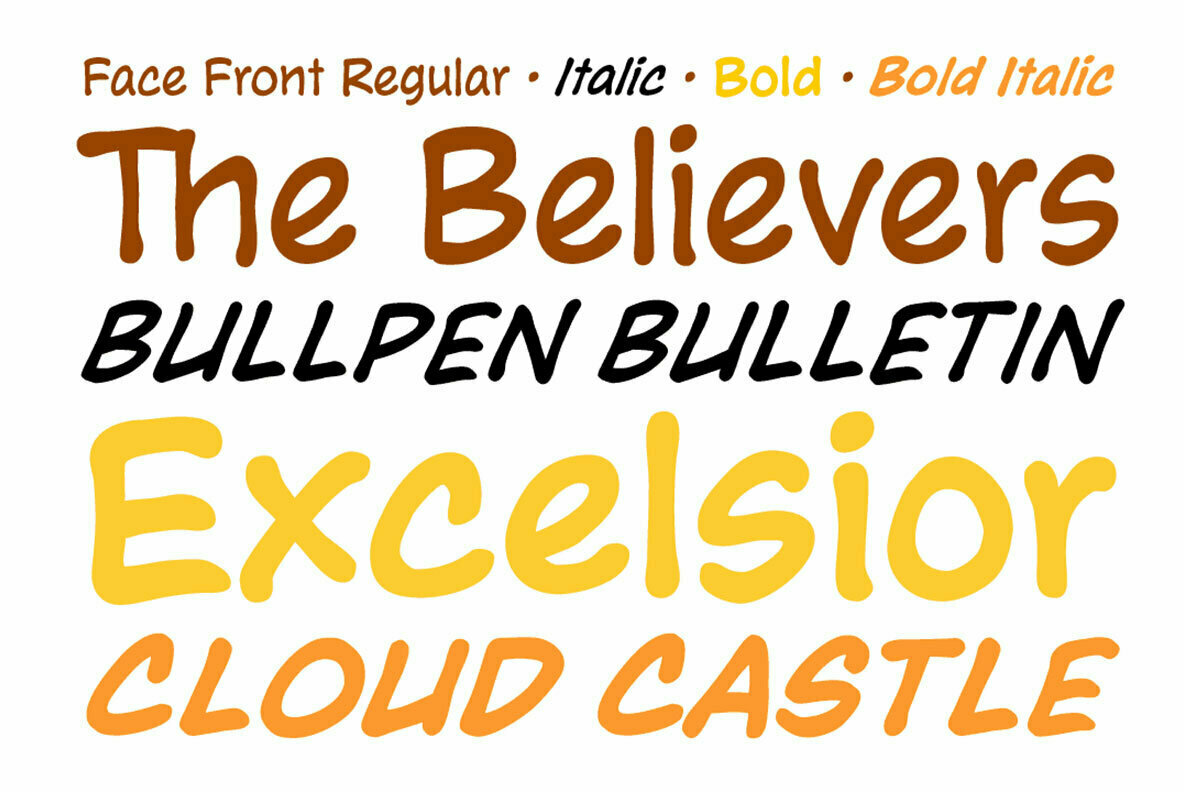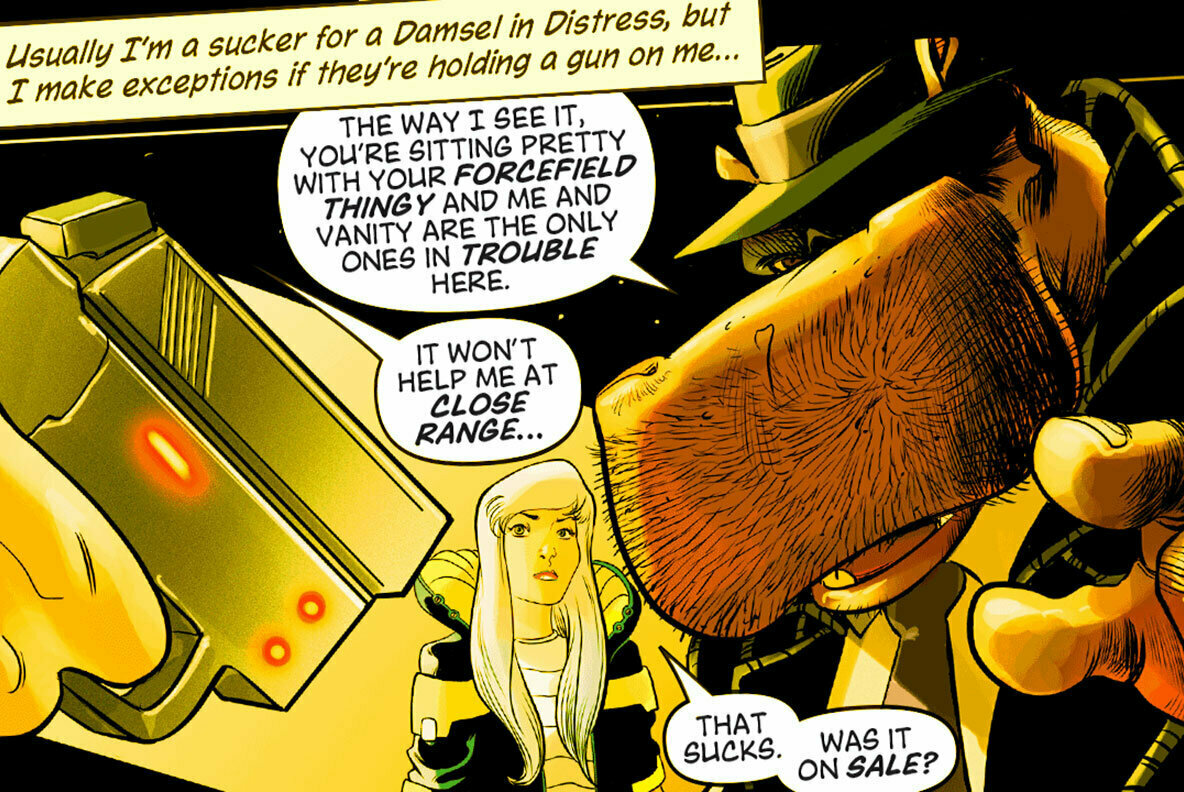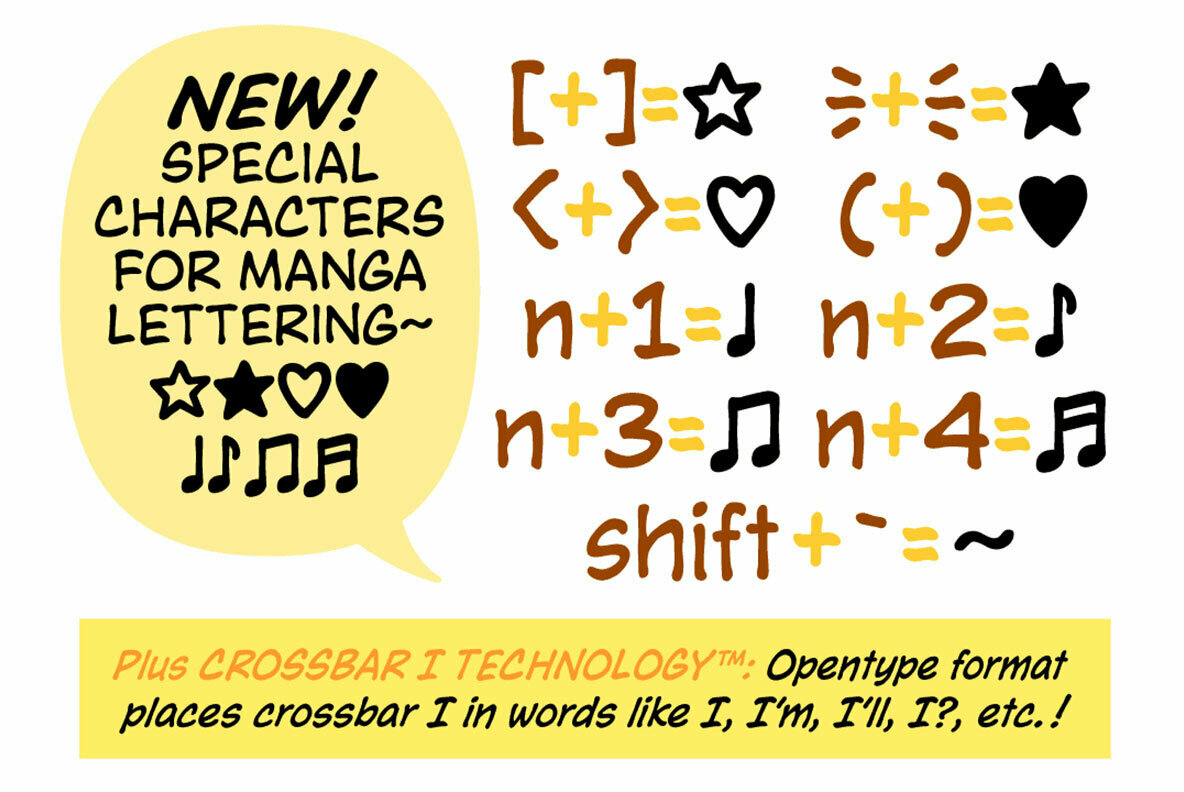
Face Front Font
Face Front, True Believers, this is the one you’ve been waiting For! Earth’s Mightiest super team of upper and lowercase letters was Assembled for the pages of Marvel Comics' The Avengers.